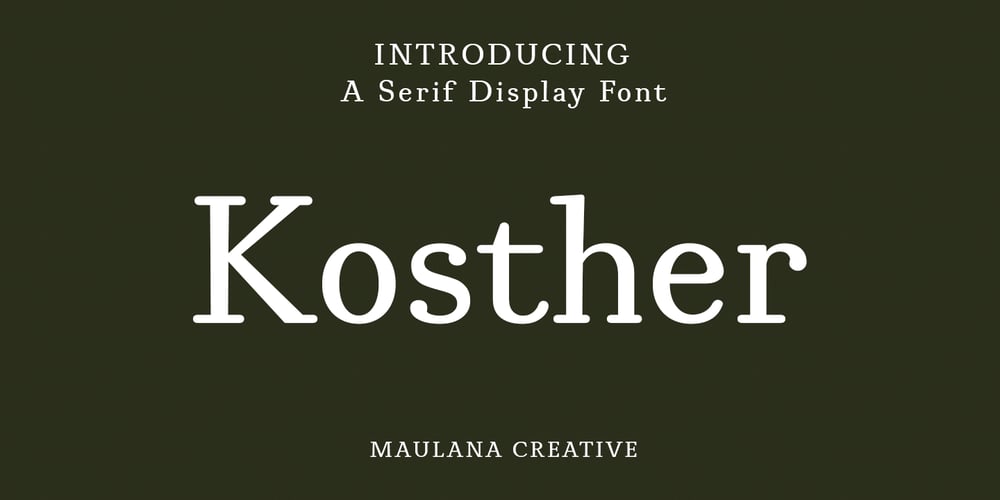
MC Kosther
MC Kosther font
MC Kosther Font Family was designed by Gilang Maulana and published by Maulana Creative. MC Kosther contains 1 styles and family package options. Kosther is a classic display serif font. With medium low contrast stroke, fun character with a bit of ligatures and alternates. To give you an extra creative work. Kosther font support multilingual more than 100+ language. This font is good for logo design, Social media, Movie Titles, Books Titles, a short text even a long text letter and good for your secondary text font with script or serif. Make a stunning work with Kosther font. Cheers, Maulana Creative